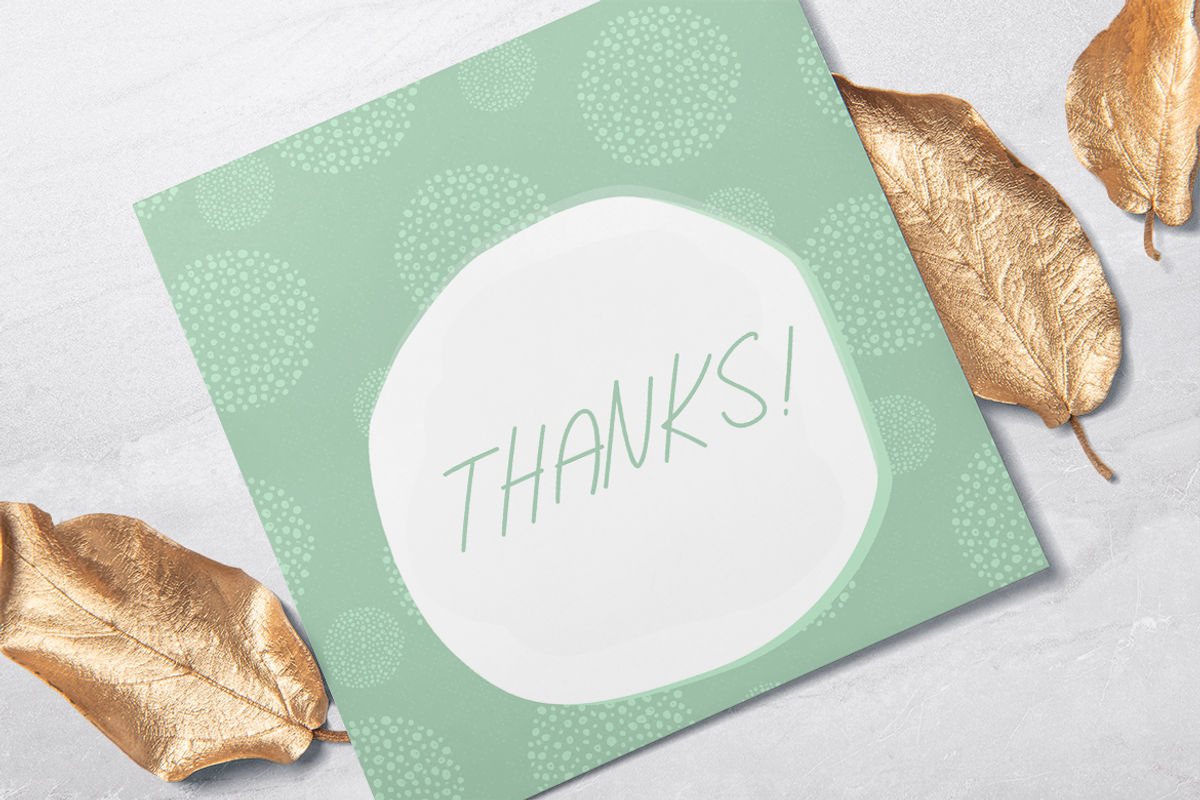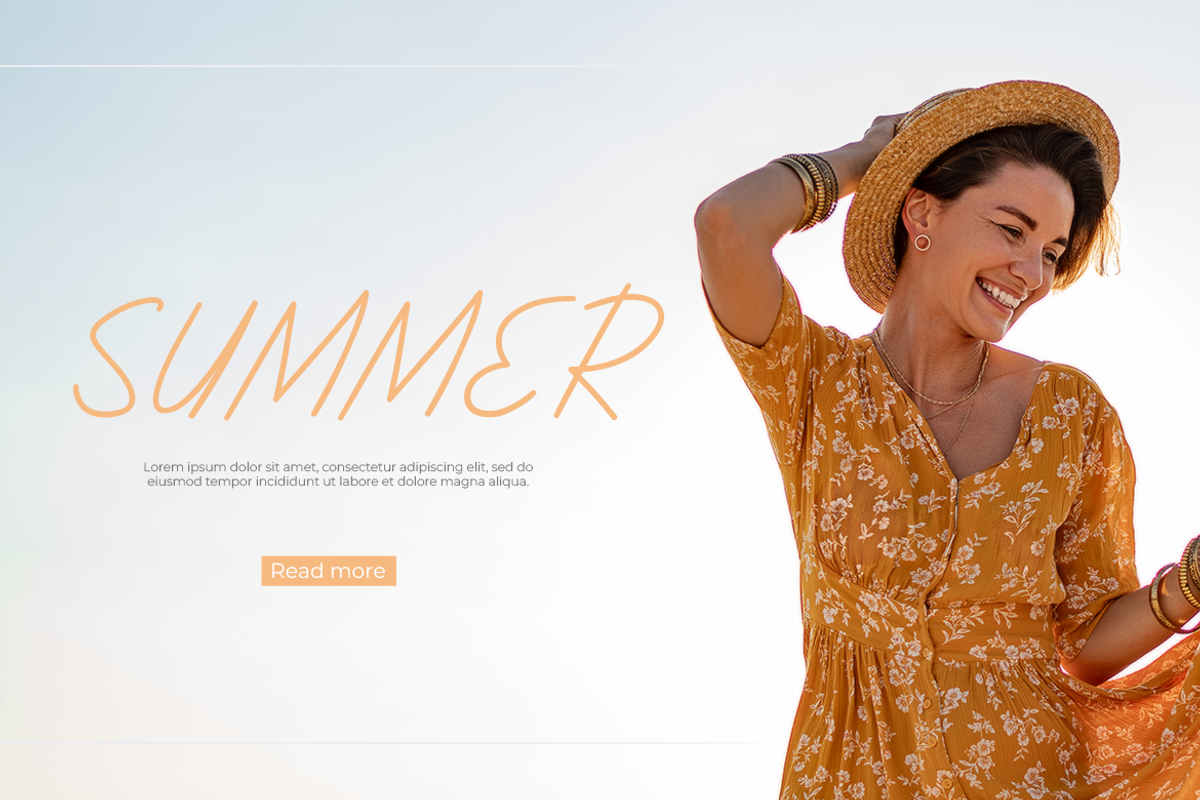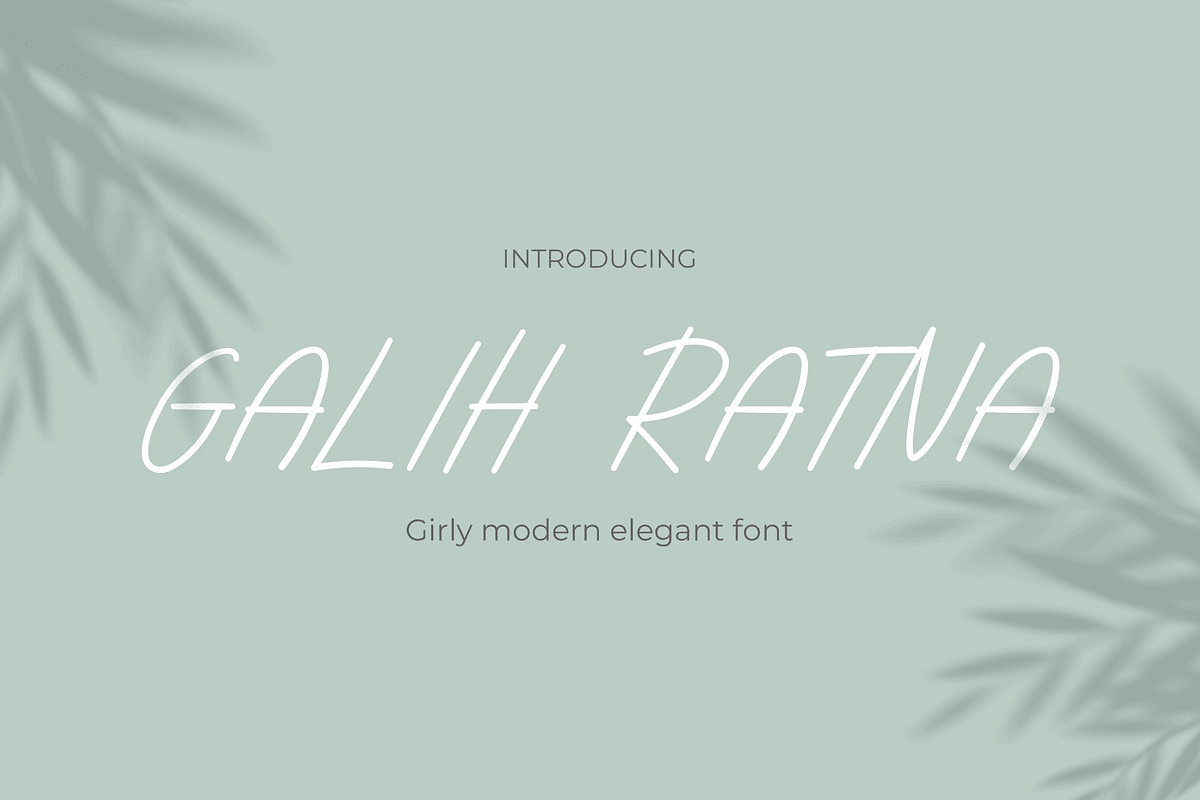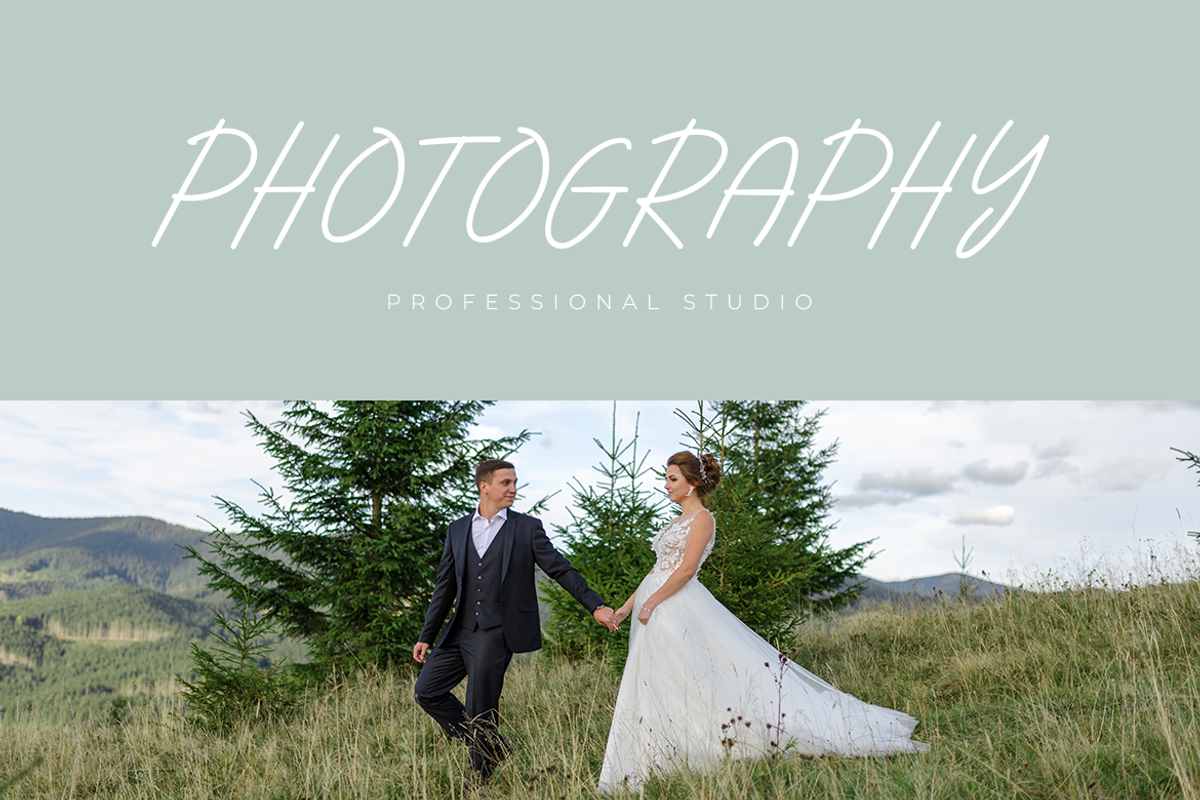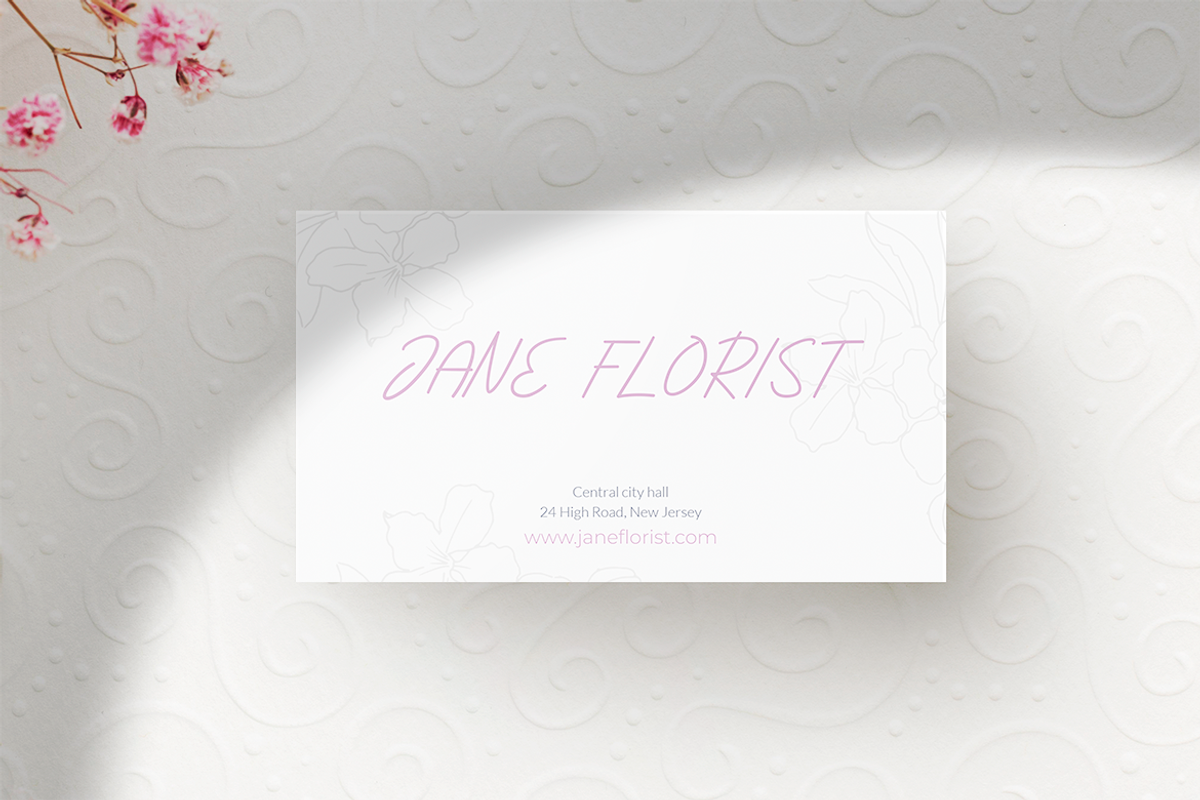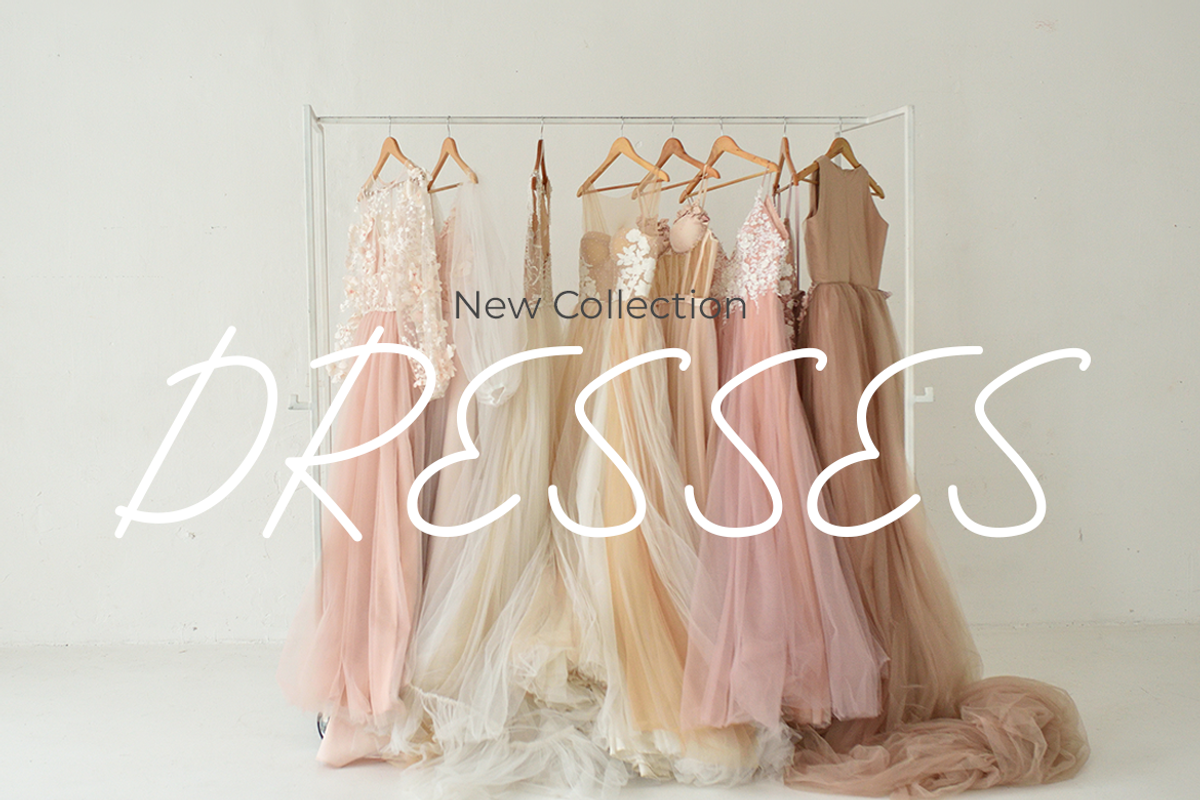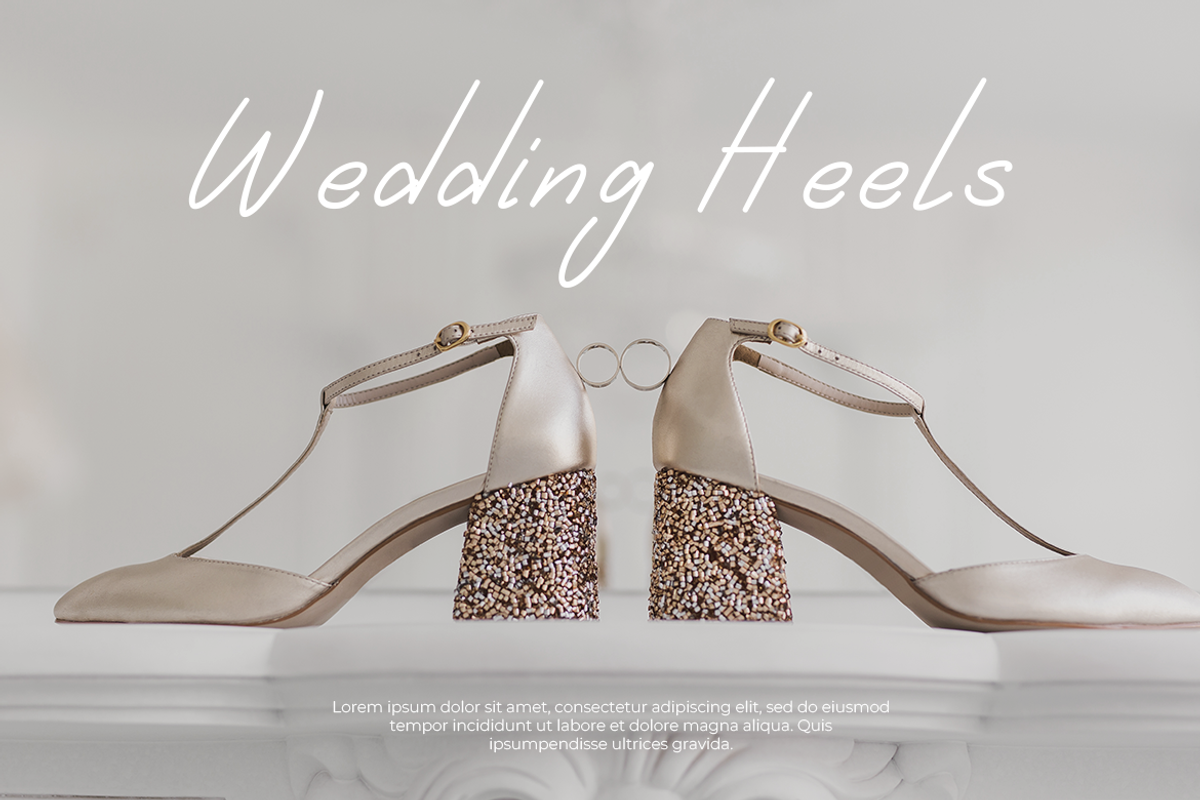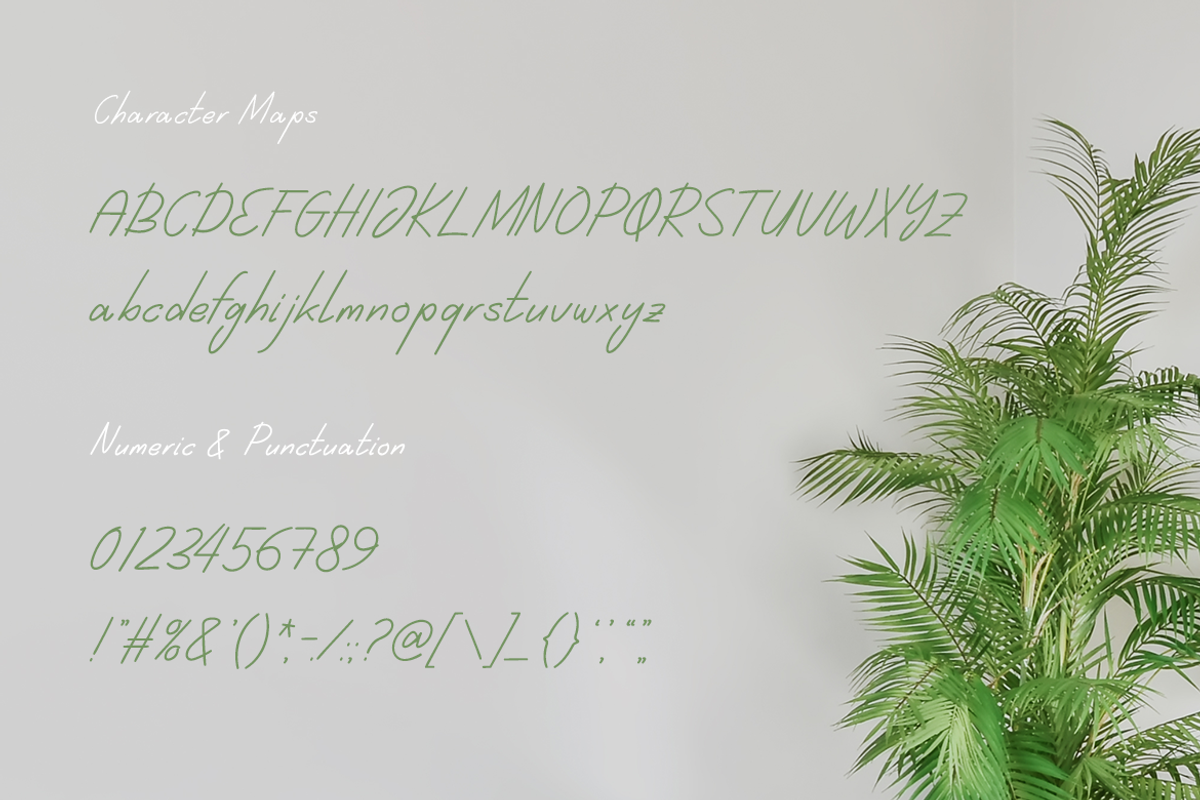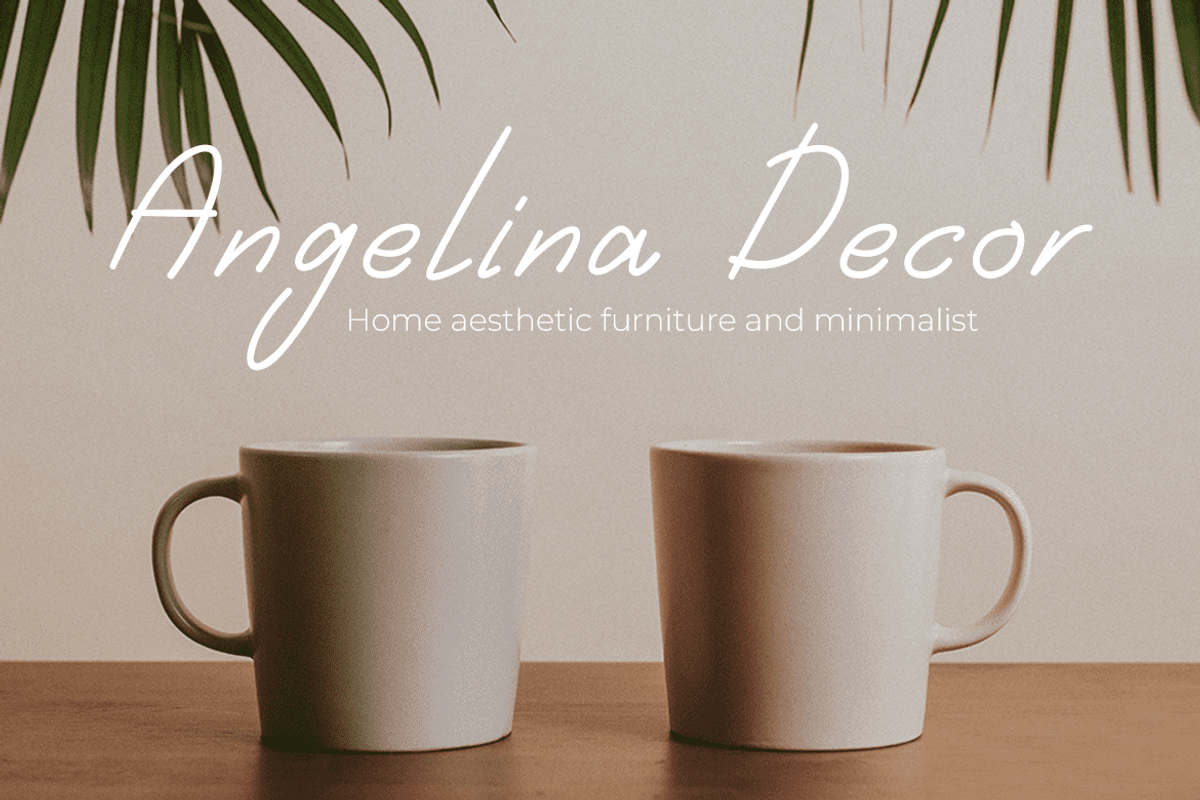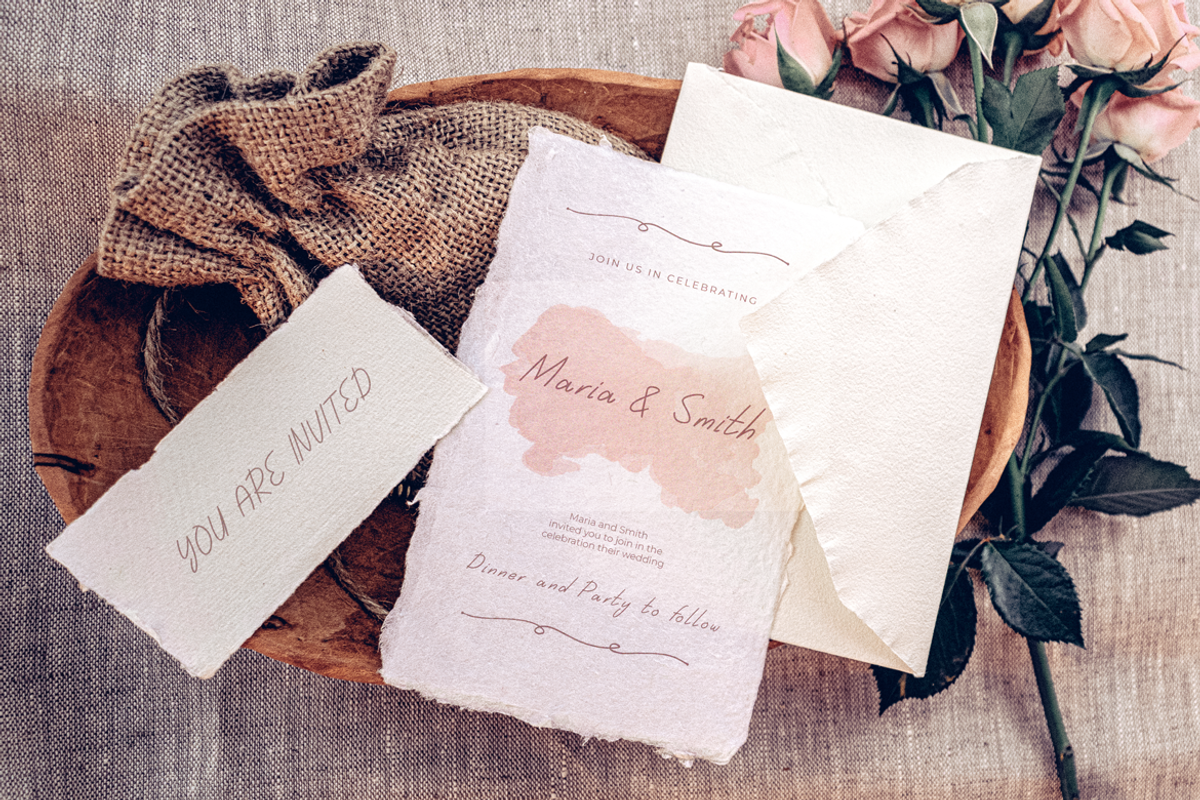
Galih Ratna
Galih Ratna Font – Modern and Elegant Touch for a Captivating Girly Impression!
Infuse elegance into every design with Galih Ratna Font! Specifically designed with a Girly Modern Elegant theme, each letter in this font portrays a blend of softness, modernity, and elegance that will add a unique charm to your projects. Suitable for various purposes, from greeting cards to promotional materials, this font will bring a captivating ambiance.
So, choose Galih Ratna Font now and bring forth the modern and elegant girly beauty in every letter of your design!